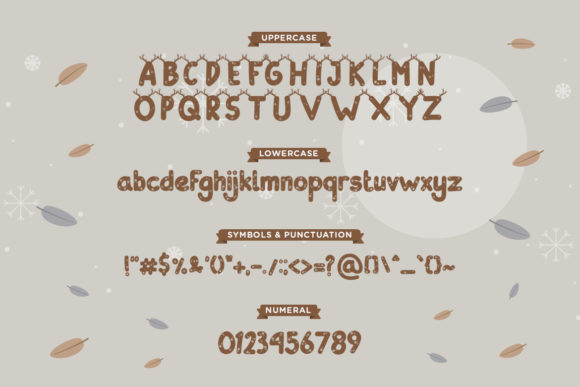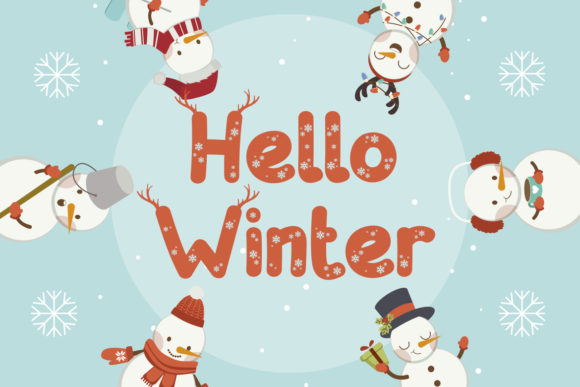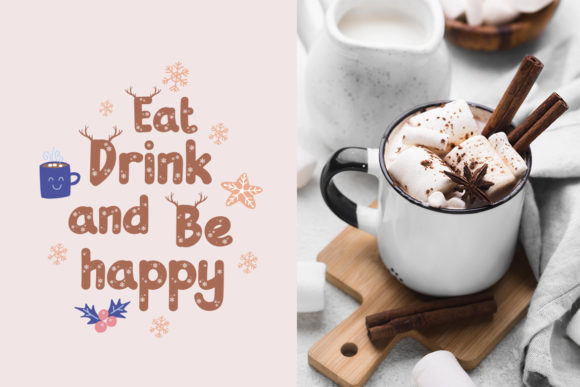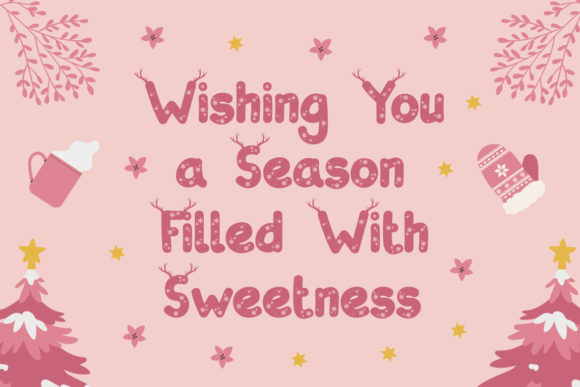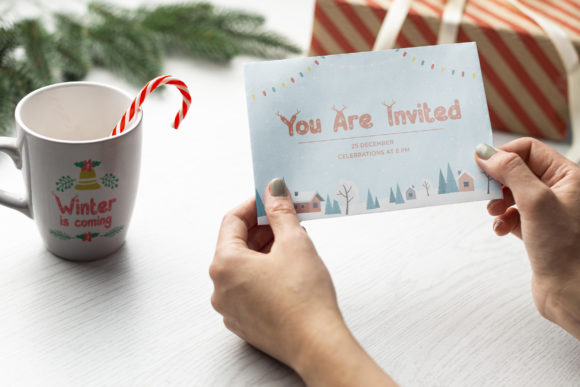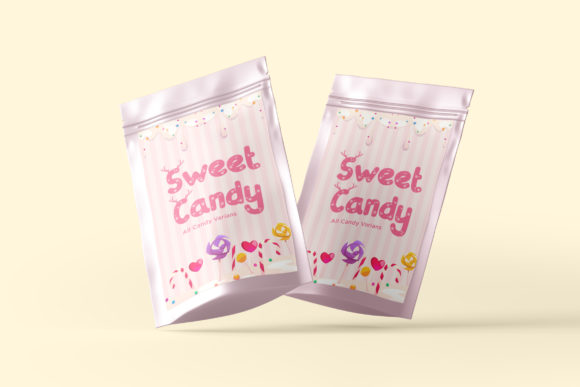
Donder Font: Elevate Your Designs with a Modern and Unique Display Font
Are you looking for a font that can add a touch of modernity and trendiness to your designs? Look no further than the Donder Font. This incredibly unique display font is perfect for winter designs, as well as any project that requires a fresh and stylish look. In this article, we’ll explore the features and benefits of the Donder Font, and show you how to make the most of this beautiful font.
What is Donder Font?
Donder Font is a modern and unique display font that is designed to make a statement. Its sleek and stylish design makes it perfect for a wide range of design projects, from winter-themed designs to trendy and modern layouts. The font features a distinctive and eye-catching style that is sure to grab attention and leave a lasting impression.
Key Features of Donder Font
So, what makes Donder Font so special? Here are some of its key features:
- Unique and Modern Design: Donder Font features a modern and unique design that is perfect for designers who want to create something fresh and stylish.
- Display Font: This font is specifically designed as a display font, making it perfect for headlines, titles, and other attention-grabbing elements.
- Winter-Themed Designs: Donder Font is ideal for winter-themed designs, such as Christmas cards, winter wonderland scenes, and more.
- Endless Variations: With Donder Font, you can create endless variations of your designs, making it perfect for crafters and designers who like to experiment.
Benefits of Using Donder Font
So, why should you use Donder Font in your designs? Here are some of the benefits:
- Adds a Touch of Modernity: Donder Font adds a touch of modernity to your designs, making them look fresh and stylish.
- Perfect for Winter Designs: This font is perfect for winter-themed designs, and can help you create stunning Christmas cards, winter wonderland scenes, and more.
- Incredibly Versatile: Donder Font can be used for a wide range of design projects, from posters and flyers to social media graphics and more.
Tips and Tricks for Using Donder Font
Here are some tips and tricks for using Donder Font:
- Experiment with Different Sizes: Experiment with different font sizes to create visual interest and hierarchy in your designs.
- Pair with Other Fonts: Pair Donder Font with other fonts to create a unique and stylish look.
- Use for Headlines and Titles: Use Donder Font for headlines and titles to grab attention and add visual interest.
- Have Fun: Most importantly, have fun and be creative with Donder Font.